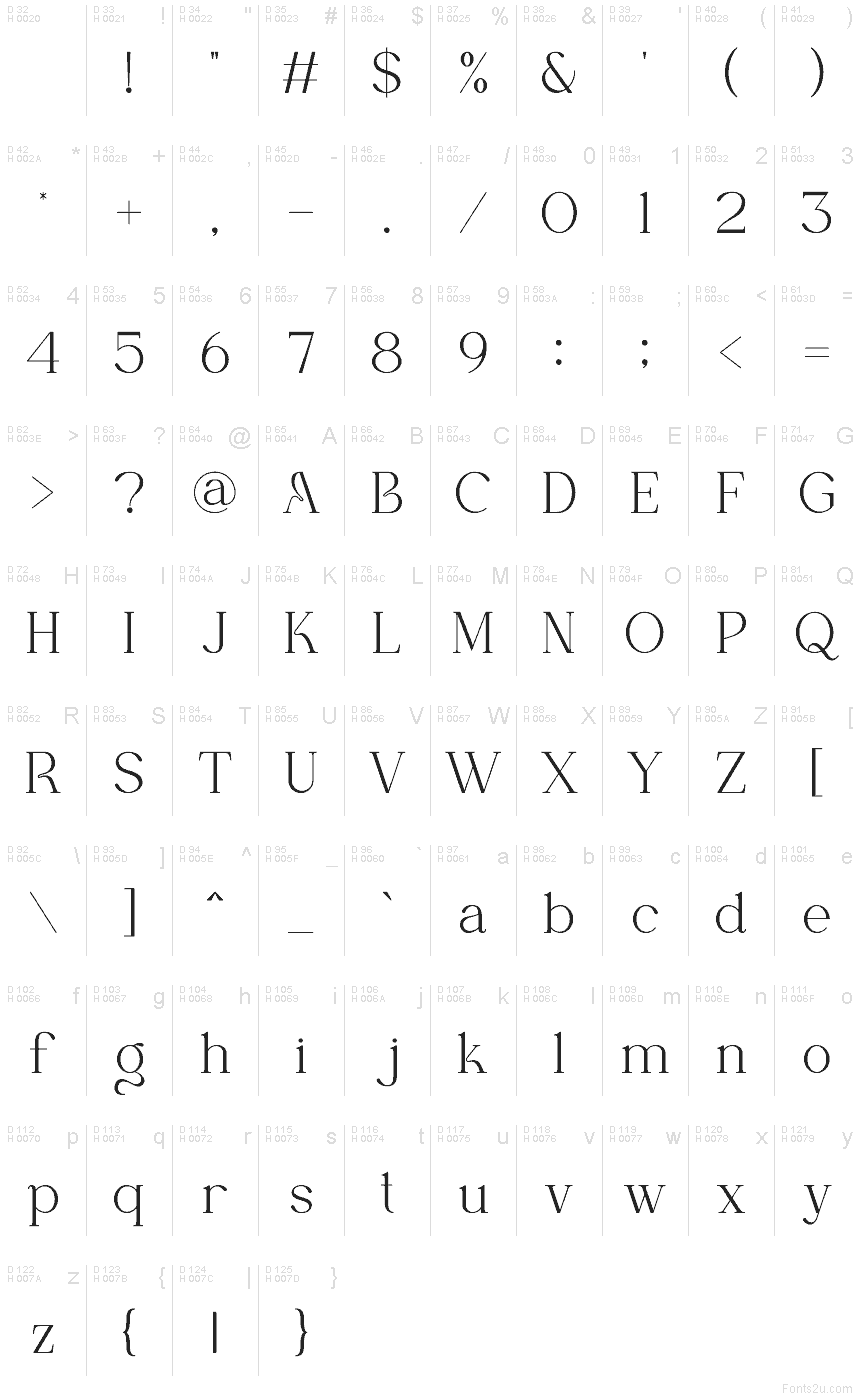
Kinasha
Kinasha by Ermedia Studio is a free serif font. Think glossy ink on smooth paper: taut verticals, needle-thin hairlines, and crisp, sculpted serifs that catch the light. Its rhythm feels editorial—elegant but decisive—so headlines lock in with authority while still looking refined. Give it generous breathing room and it rewards you with a luxe, magazine-grade finish.
Using Kinasha, you can elevate fashion branding, magazine covers, cosmetics packaging, event invitations, restaurant menus, and hero banners. This free font shines at larger sizes where its delicate details stay sharp. For balance, pair it with a quiet geometric or humanist sans for body copy, and keep titles at 48pt and up to let Kinasha do the talking.